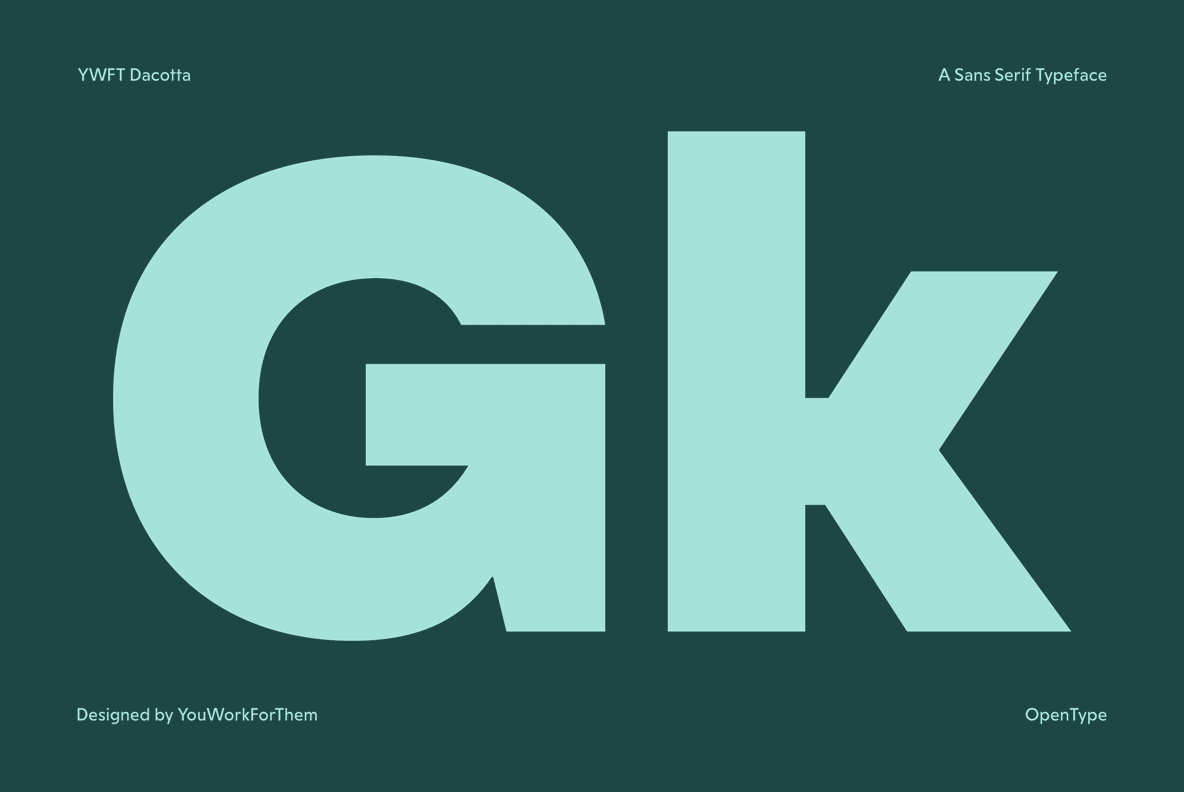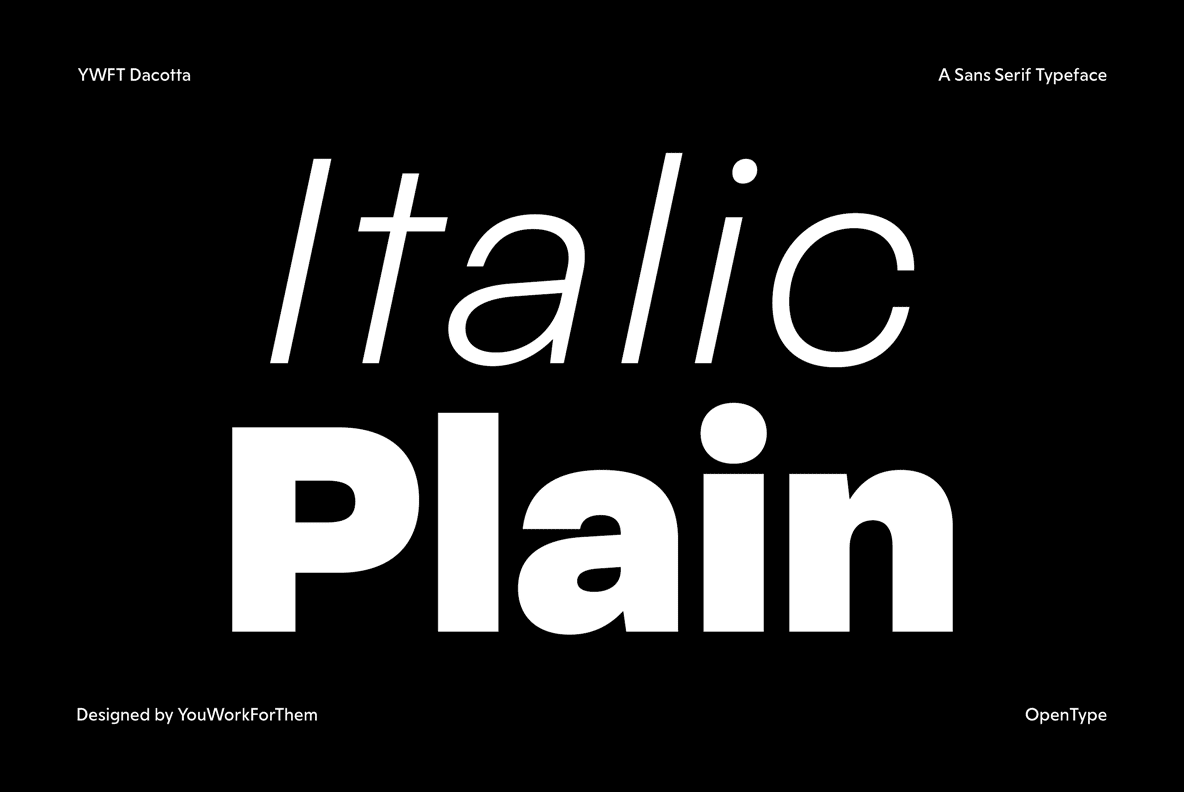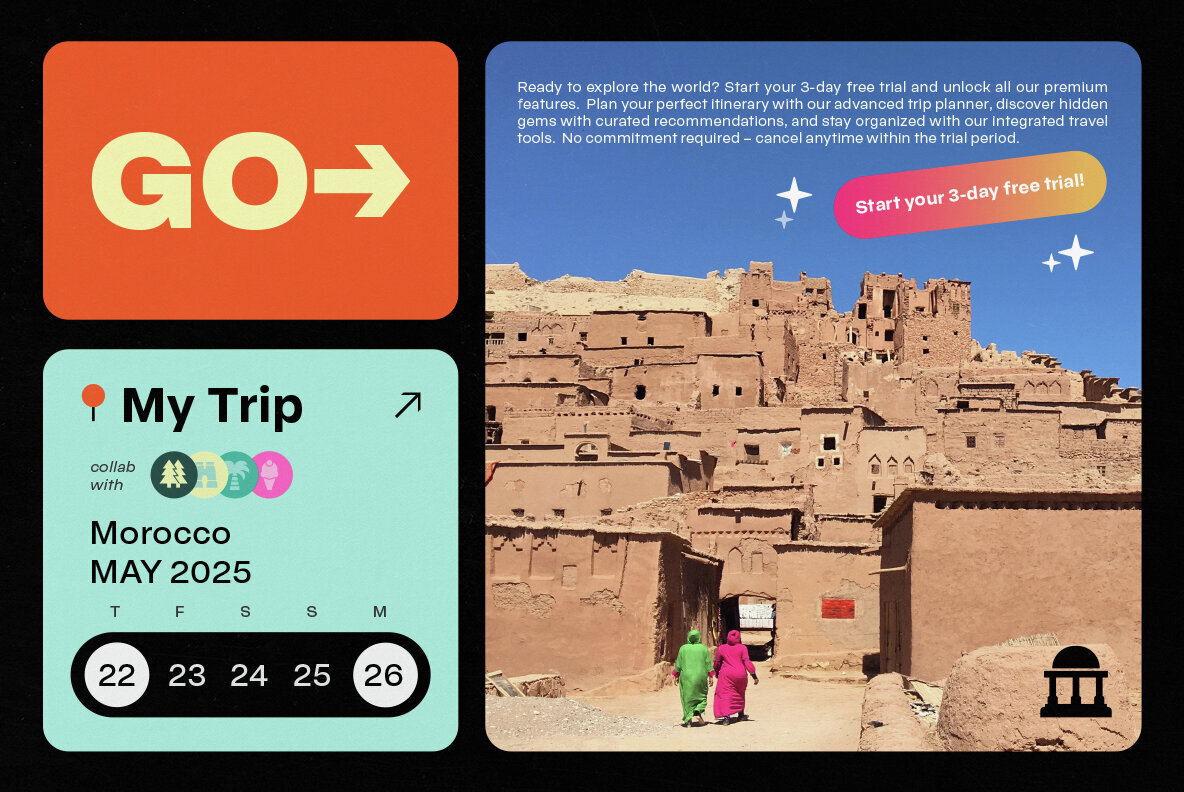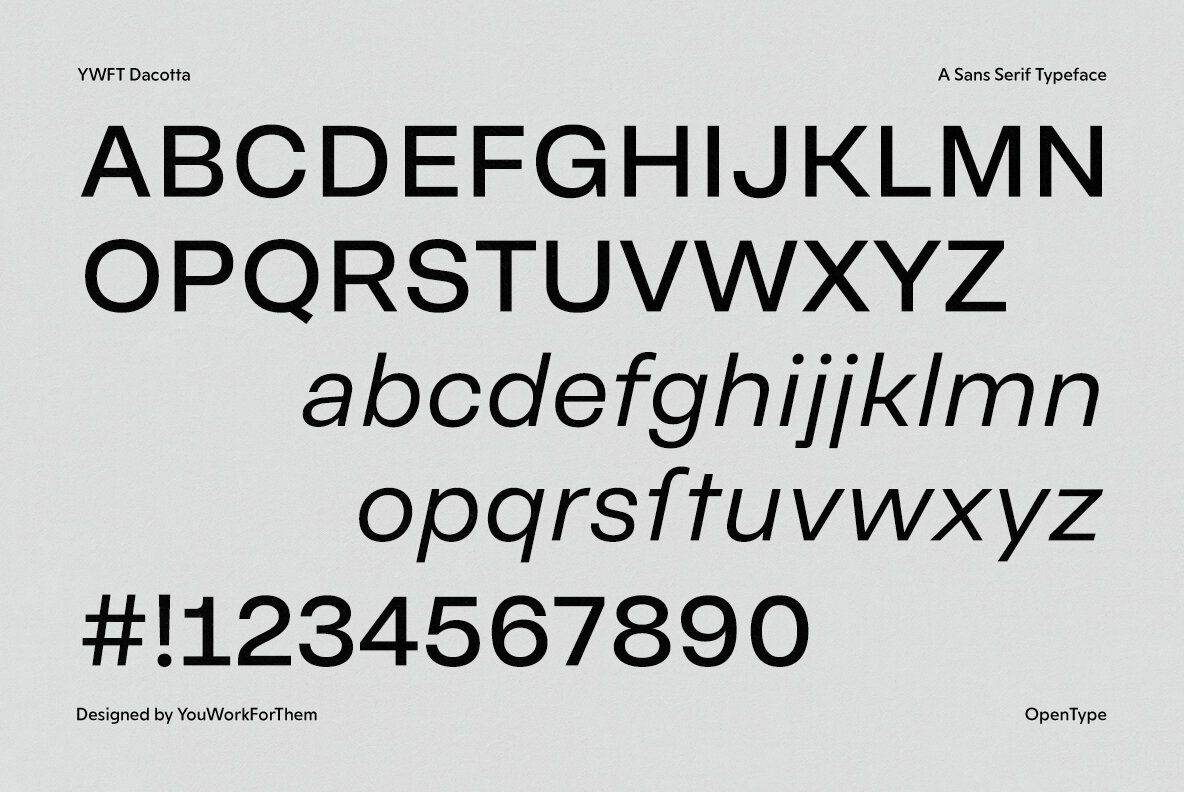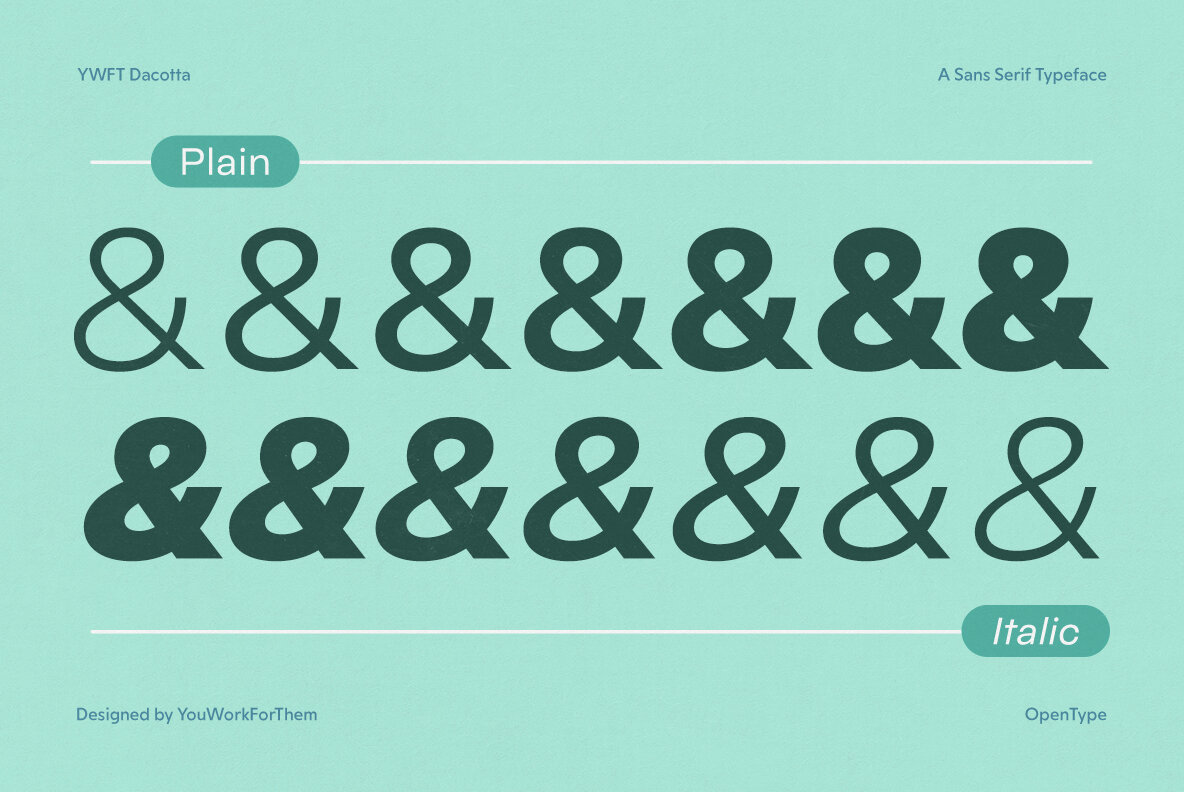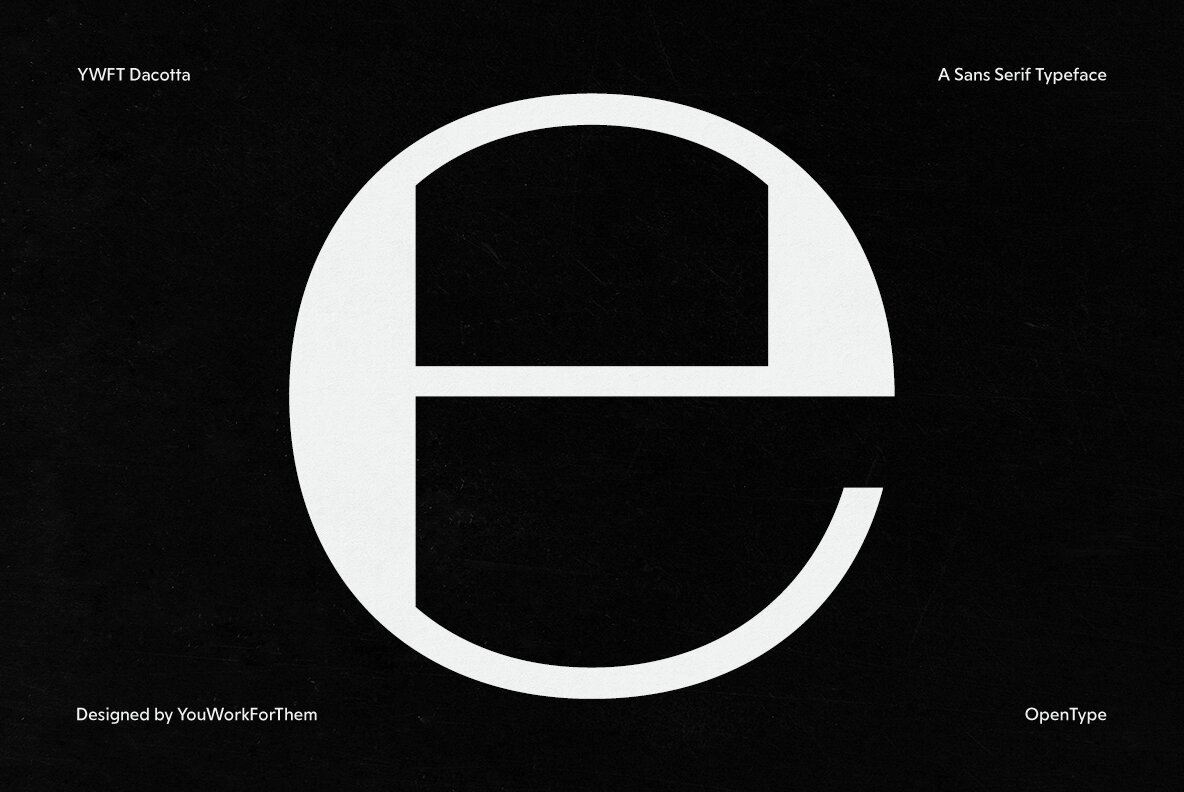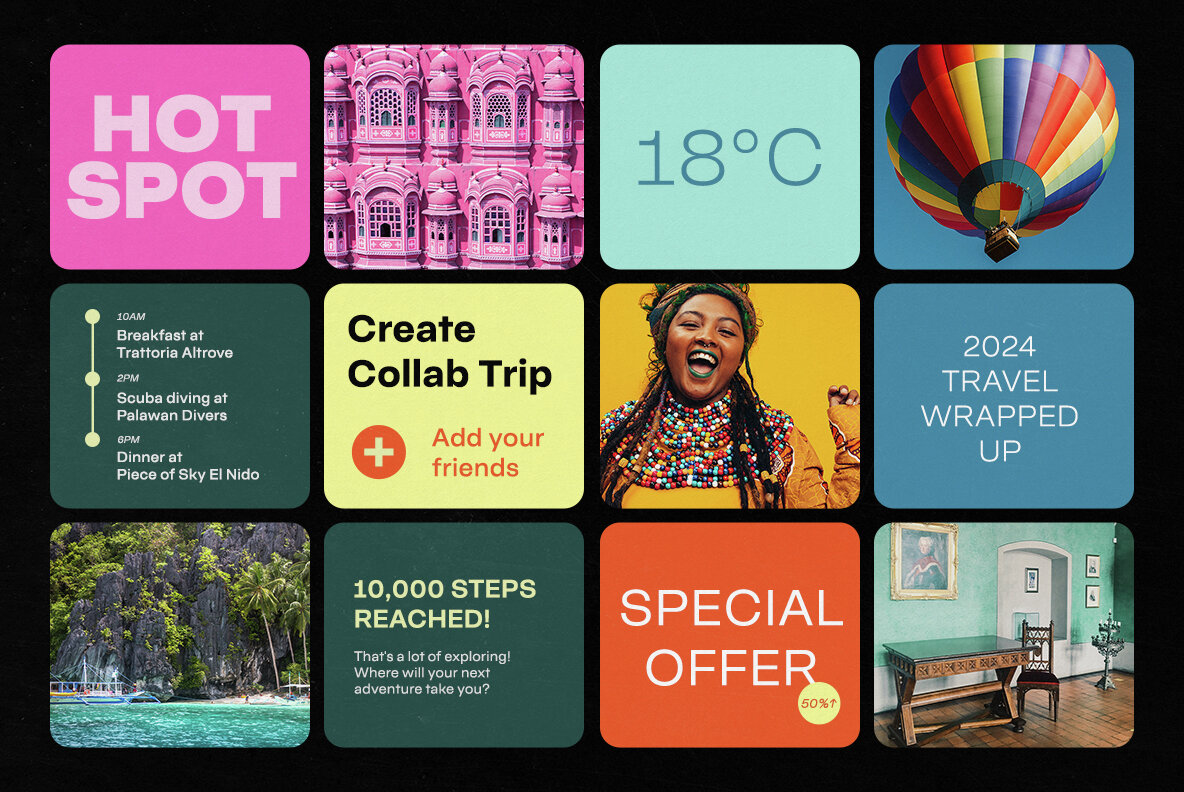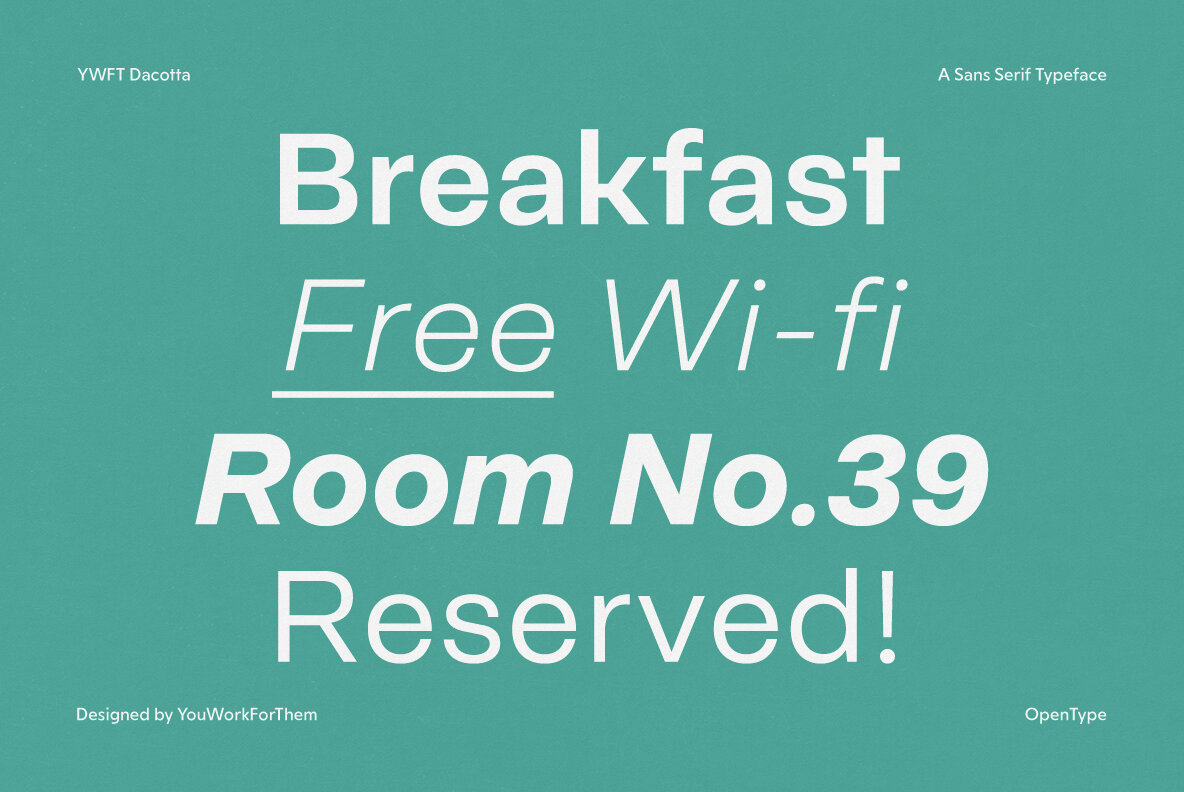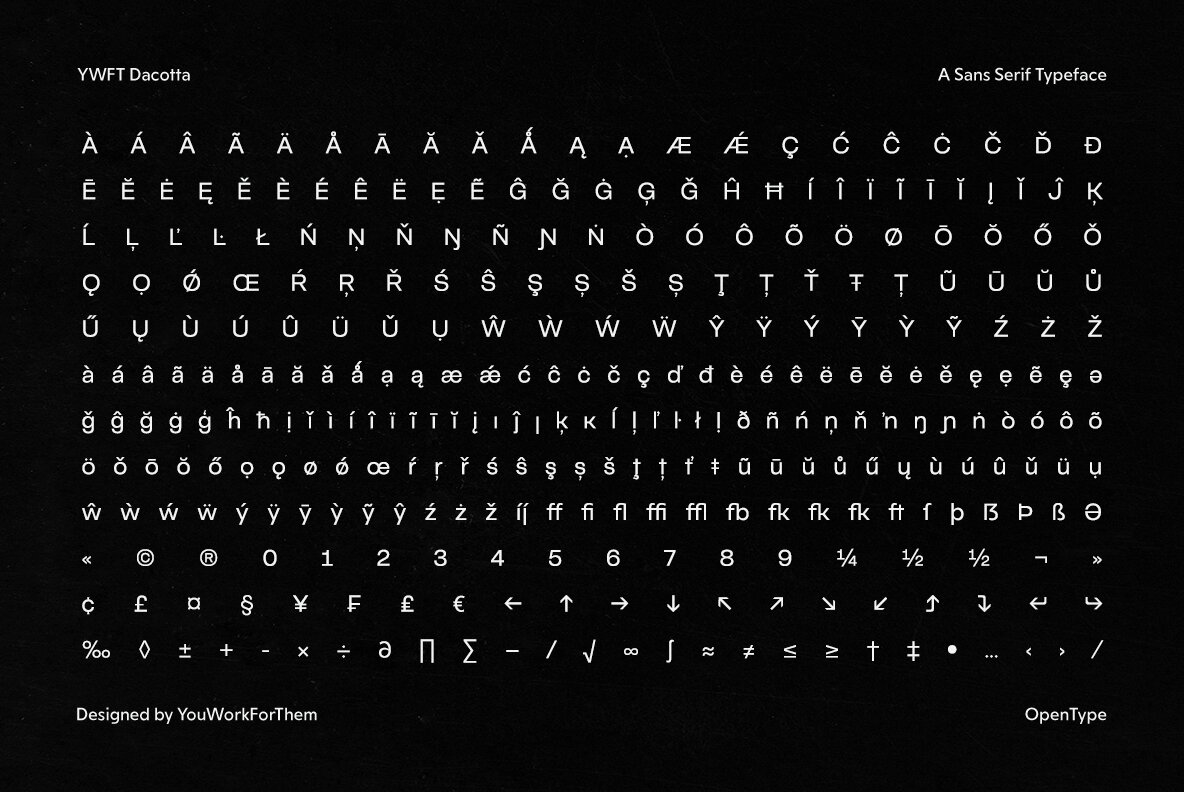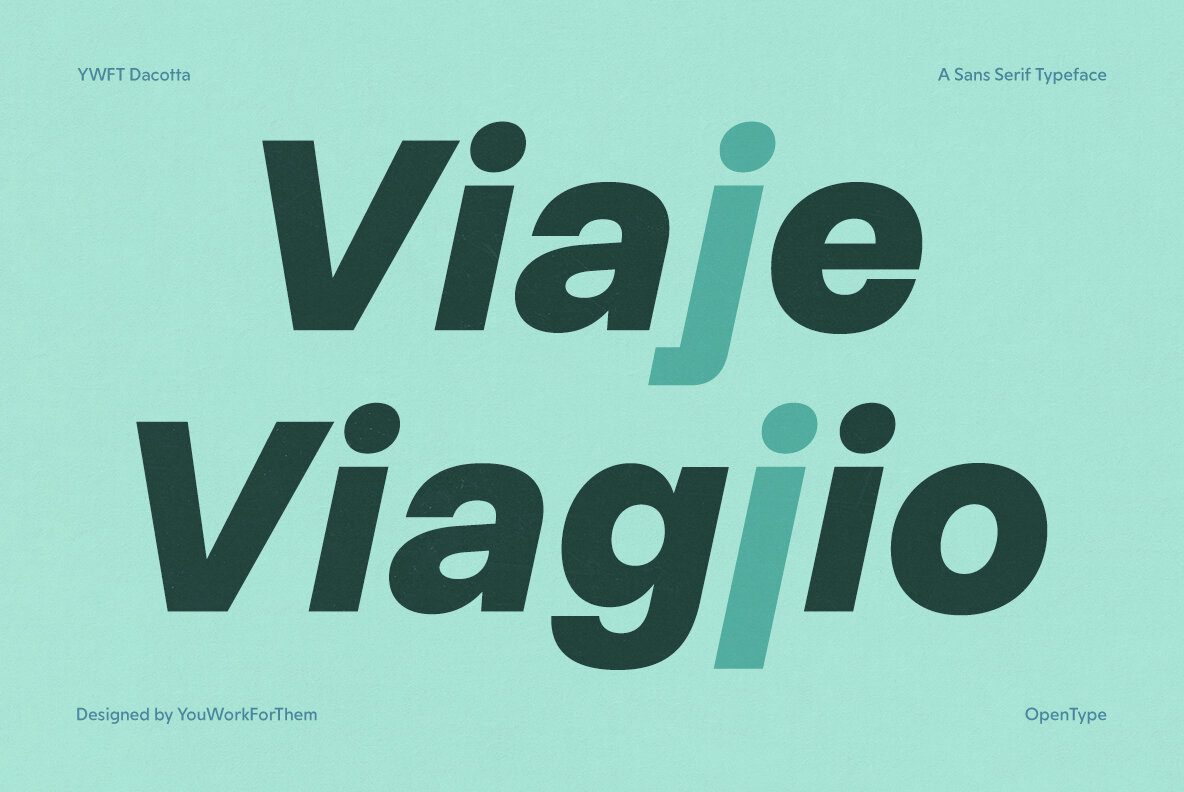
YWFT Dacotta Font
Typography is more than just letterforms—it’s the foundation of how we navigate the digital world. YWFT Dacotta is a modern sans-serif font built with clarity, adaptability, and seamless communication in mind. Designed for app interfaces, mobile platforms, and travel-inspired branding, it merges precision with personality, offering a typographic experience that’s as intuitive as it is visually compelling. Crafted for the screen-first era, YWFT Dacotta is optimized for iOS, Android, and web applications, making it the perfect choice for brands that prioritize legibility and clean communication. Whether used in Airbnb-style lifestyle apps, travel platforms, or fintech dashboards, this typeface ensures smooth readability in both UI elements and high-impact headlines. With a design that prioritizes modern user experiences, YWFT Dacotta balances geometric structure with warm, humanist details, making it both functional and inviting. It’s built for scalability, rendering crisply across all screen sizes—from mobile notifications to full-scale digital signage. Global reach requires global readability. YWFT Dacotta supports 461 glyphs across multiple writing systems, covering Basic Latin, Western European, Greek, Turkish, and Pan-African Latin. Whether your project is targeting European travel apps, fintech startups, or hospitality branding, this font communicates universally. YWFT Dacotta is more than just a digital-first sans-serif—it’s packed with OpenType features designed to streamline workflows: Great digital design requires a typeface that keeps up with modern branding needs. YWFT Dacotta thrives in lifestyle, travel, and fintech environments, ensuring clarity in app UI, booking systems, pricing layouts, and mobile dashboards. You won’t find YWFT Dacotta anywhere else. It’s a YouWorkForThem exclusive, available with one-time licensing—no subscriptions, no restrictions. Whether you’re designing for Figma, Adobe XD, or web development, this sans-serif is ready to power your next digital experience. From wayfinding to web apps, YWFT Dacotta is built for clarity, designed for the future. Additional products used for slideshow images:YWFT Dacotta: The Sans-Serif Engineered for Modern Interfaces
A Smart Sans-Serif Built for Digital and Mobile Design
Lightweight Yet Bold: A Sans-Serif That Adapts to Every Screen
A Multi-Language Powerhouse for Global Brands
OpenType Features for Seamless UI Design
Designed for Brands That Move Fast